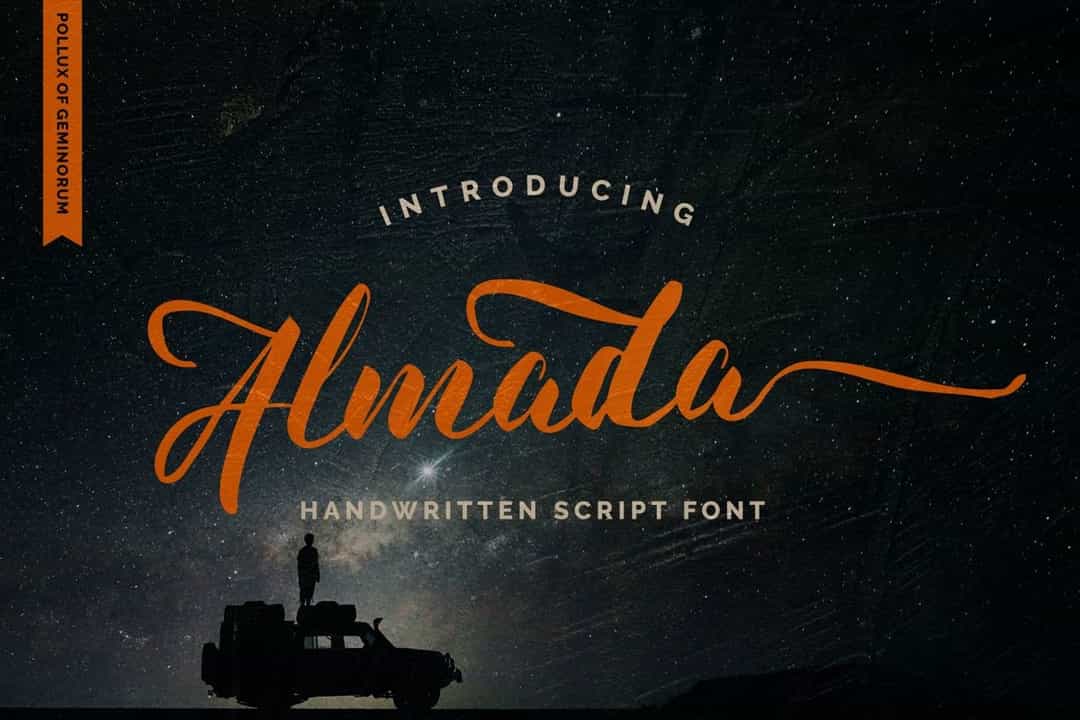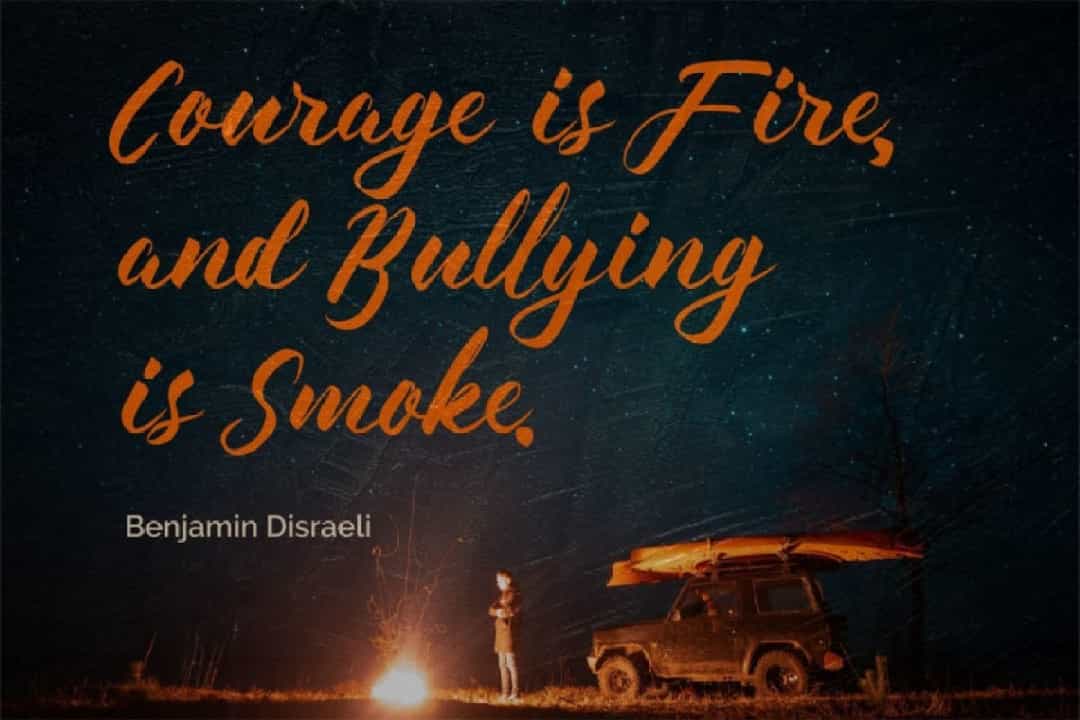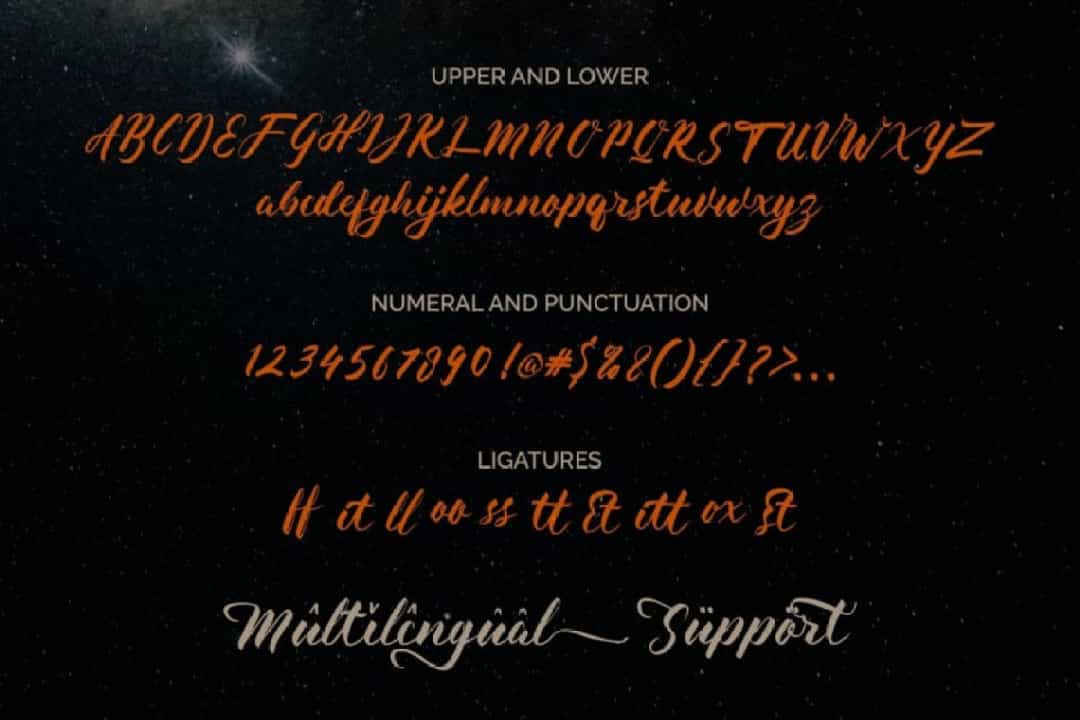
Almada is an artistic font with fluidity that is recommended for use with PUA encoded font readers so that all characters and stroke of the font can be accessed easily. Base line width is adjustable, and there is a variety of smooth lines, and the font has beautiful alternates and glyphs – Almada is sure to catch your eye!